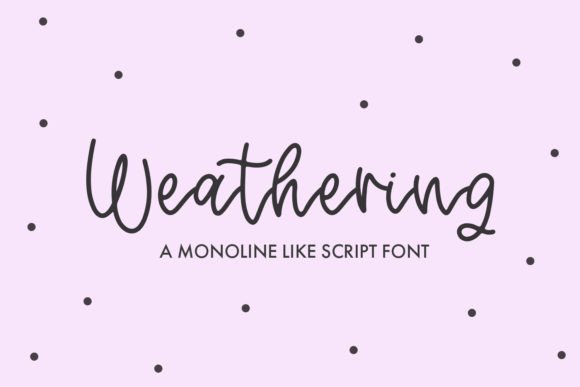
Unleash the beauty of timeless elegance with 'Weathering', the exquisite monoline script font crafted by freelingdesignhouse. Its delicate strokes and flowing curves effortlessly add a touch of grace to your creations. Envision your wedding invitations adorned with the charm of 'Weathering', a font that captures the essence of lasting love and sophistication. Let your branding radiate with a classic and refined aesthetic, ensuring your designs stand the test of time. In a world where trends come and go, 'Weathering' is your timeless companion, the perfect choice for creating enduring impressions. Step into the world of elegance today and let 'Weathering' elevate your designs to new heights of beauty and sophistication.
With its versatility and timeless appeal, 'Weathering' is the perfect font for a wide range of projects. Its monoline style lends a touch of simplicity and minimalism to your designs, while still maintaining a sense of warmth and personality. Create stunning wedding signs, logos, invitations, and social media graphics that exude elegance and charm. Let 'Weathering' be your secret weapon to create designs that capture hearts and leave a lasting impression.
Experience the magic of 'Weathering' today and embark on a creative journey that transcends time. Its effortless beauty and versatility will transform your projects into timeless masterpieces. Whether you're a seasoned designer or just starting out, 'Weathering' is the perfect font to add a touch of timeless sophistication to your work. Elevate your designs to new heights of excellence with 'Weathering', the monoline script font that will leave an indelible mark on the hearts of your audience.